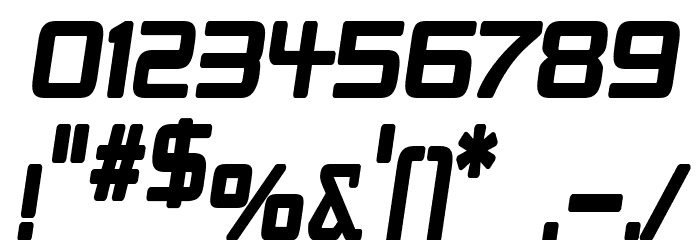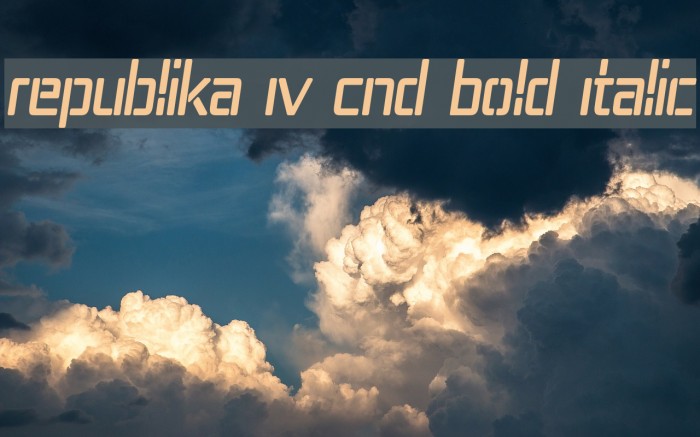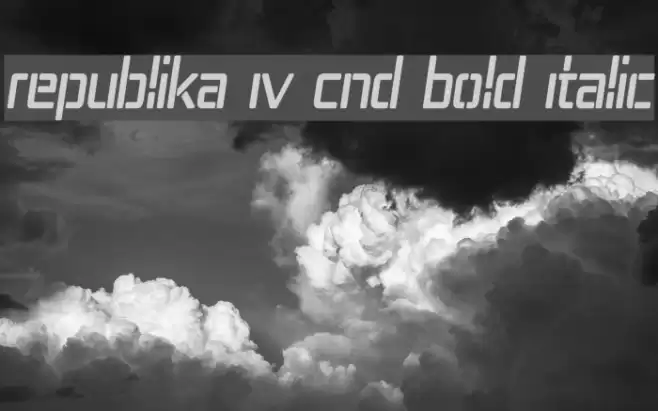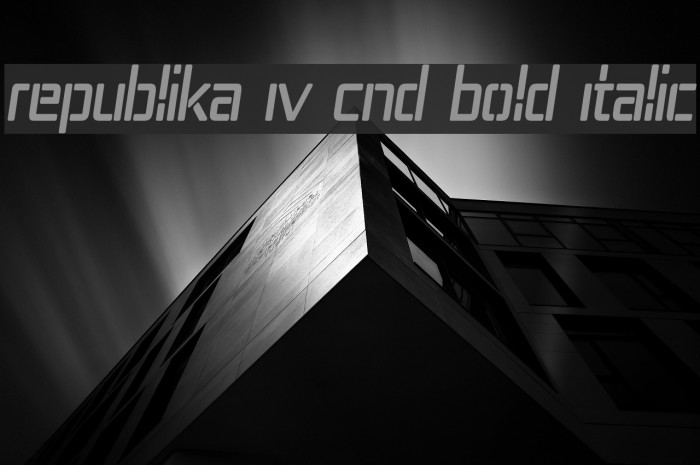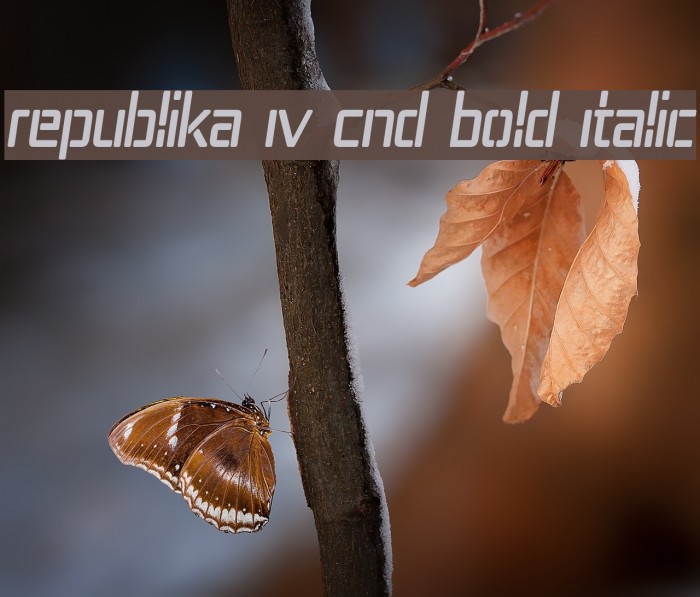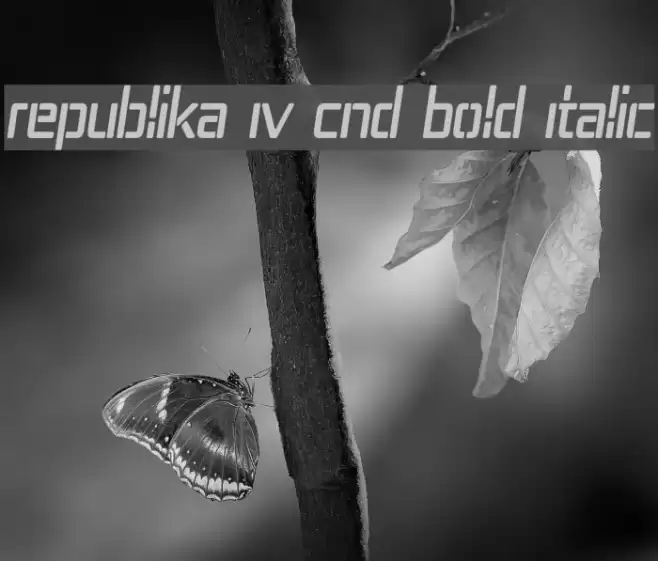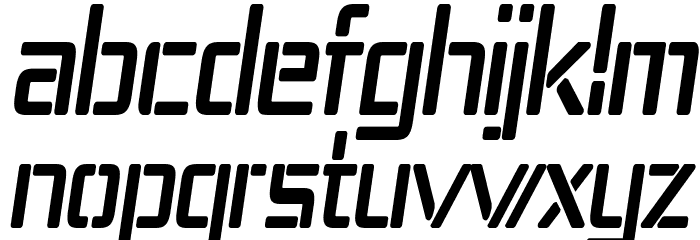
Republika IV Cnd Bold Italic Font
Republika IV Cnd Bold Italic Description
This font exhibits a modern and sleek design with a condensed and bold appearance. The italic style adds a dynamic and forward-leaning aspect, enhancing its contemporary feel. The characters are uniformly structured with a geometric influence, providing a clean and professional look. The numerals and special characters maintain the same stylistic features, ensuring consistency across all elements. The overall design is well-suited for projects that require a strong visual impact while maintaining readability.
Proposed ProjectsIdeal for branding, advertising, and editorial design where a modern and impactful typeface is needed.